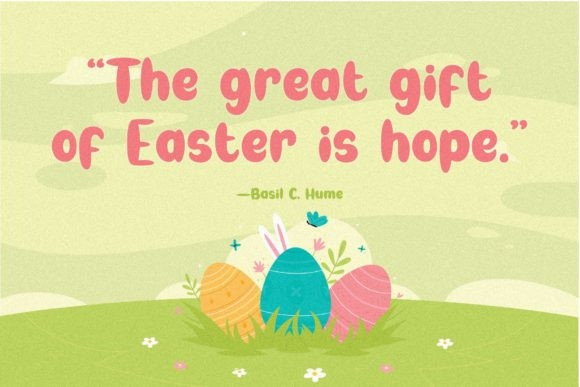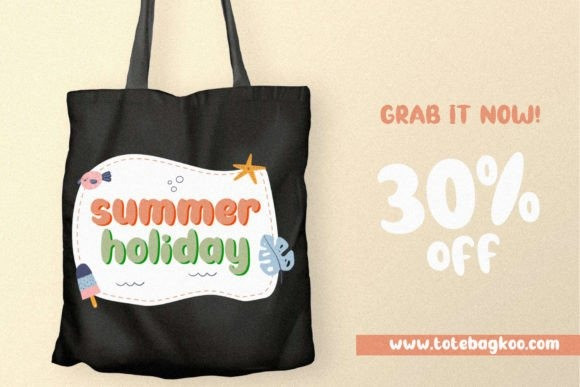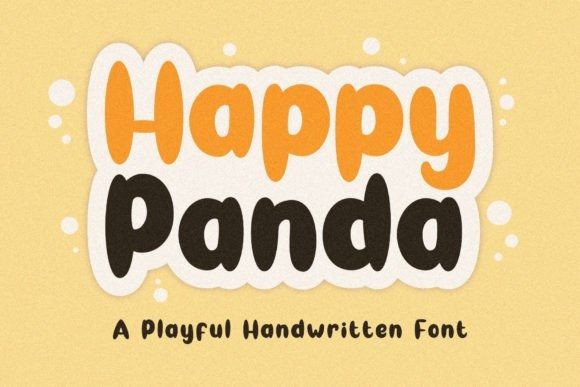
Happy Panda Font
Happy Panda Font is a bold playful font that will make your designs stand out. Whether you need a logo, poster, or a greeting card, Happy Panda is the perfect choice for any kid-friendly project.